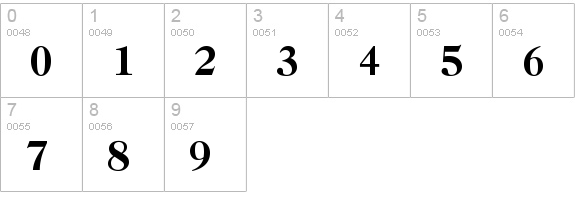
Caslon Old Face Heavy Font Details
Caslon Old Face Heavy is a heavy, high-impact variant in the Caslon typeface family \xE2\x80\x94 well suited to high-impact headlines, posters, and display advertising.
Caslon Old Face Heavy font is a classic and timeless typeface that exudes elegance and sophistication. With its bold and strong presence, this font is perfect for making a statement in headlines, titles, and logos. The sturdy serifs and graceful curves give Caslon Old Face Heavy a sense of tradition and authority, making it an excellent choice for projects that require a touch of vintage charm. Best of all, Caslon Old Face Heavy font is available for free download at FontsMarket.com, allowing you to effortlessly add this versatile typeface to your design arsenal. Whether you're working on a print publication, digital design, or branding project, Caslon Old Face Heavy font is sure to elevate your work with its distinctive style and character.